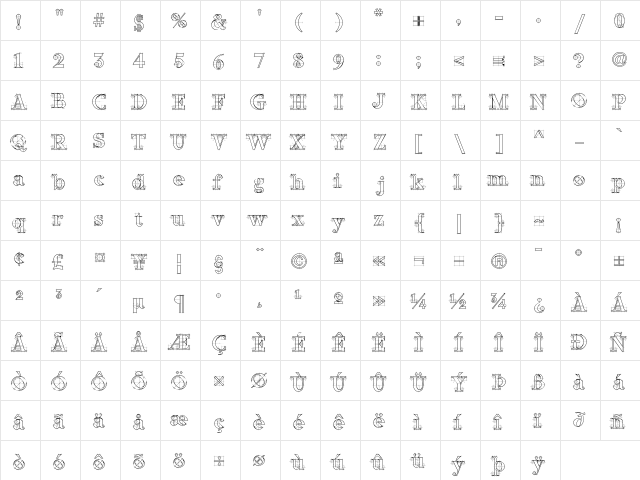
Rubino Serif Regular
Design Context for Rubino Serif Typeface
Rubino Serif brings classic typographic sensibility to the table — its serifs and measured letterforms reflect centuries of print heritage.
Pro Tip: Set Rubino Serif with slightly loose tracking in headlines to let each letterform's detail read clearly at display sizes.